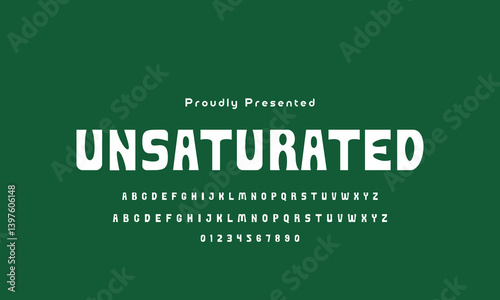
Vector Illustration Playful Handmade Typography. Font For Kids and Games. Kids style colorful font design, playful childish alphabet, letters and numbers vector illustration